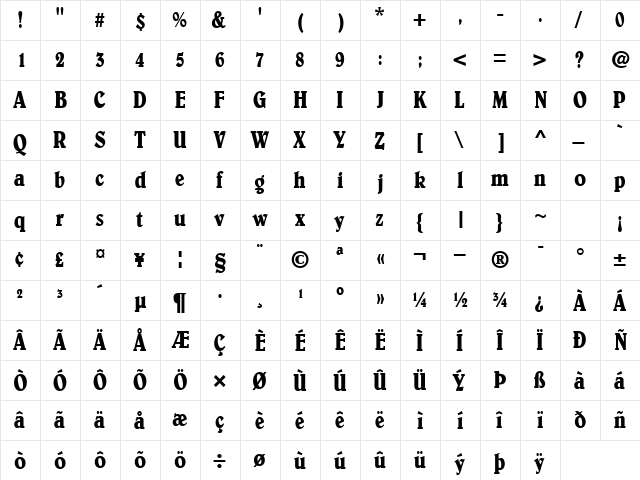
BarristerCondSSK Regular
Design Context for BarristerCondSSK Typeface
BarristerCondSSK takes a measured approach to typography — its balanced proportions and neutral character make it a reliable workhorse for both digital and print work. Its narrow stance lets it pack a punch even in space-constrained designs.